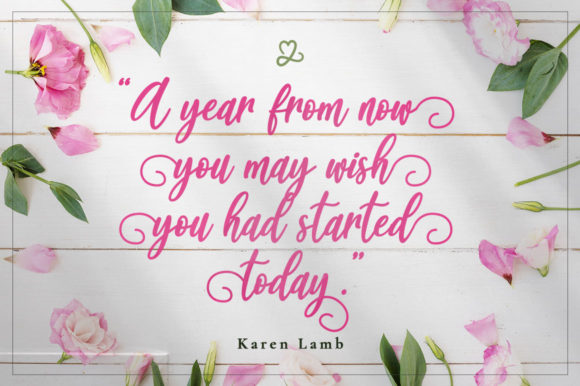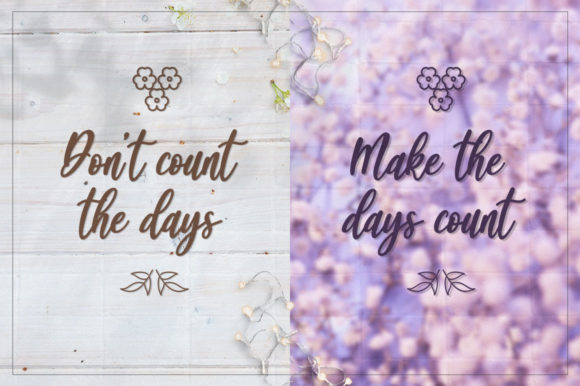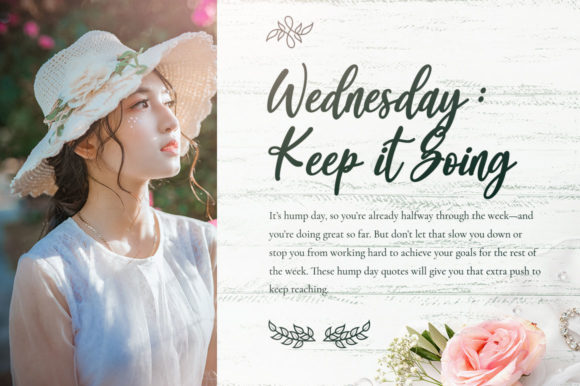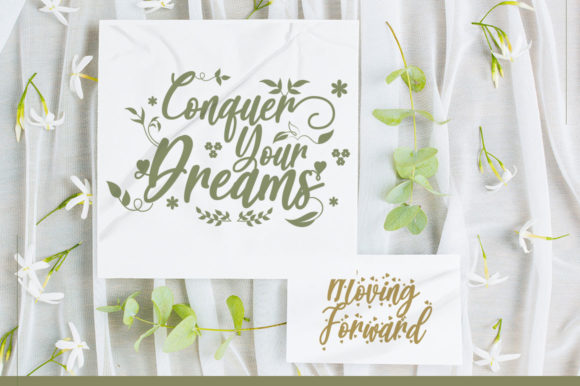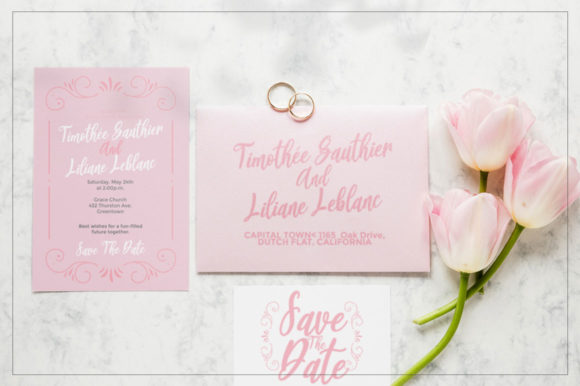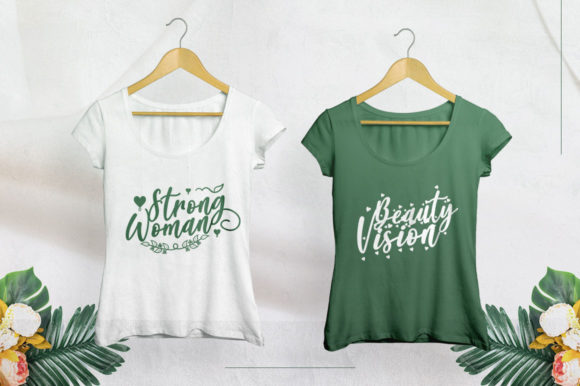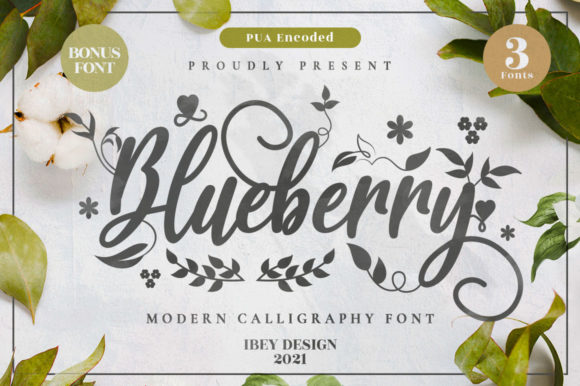
Introducing Blueberry Font: Elevate Your Designs with Elegance
Are you on the hunt for a font that exudes elegance and sophistication? Look no further than Blueberry Font, a unique and beautiful handwritten font that’s perfect for designers and crafters seeking to add a personal touch to their creations. In this article, we’ll dive into the world of Blueberry Font, exploring its features, uses, and benefits, and why it’s a must-have for anyone looking to elevate their designs.
Aesthetic Appeal of Blueberry Font
Blueberry Font boasts a distinctive, elegant handwritten style that instantly captures attention. Its flowing lines and delicate curves lend a touch of sophistication to any design, making it an ideal choice for projects that demand a high level of personalization. Whether you’re creating wedding invitations, thank you cards, greeting cards, or logos, Blueberry Font is sure to make your designs stand out.
One of the standout features of Blueberry Font is its versatility. This font can be used across a wide range of design projects, including:
- Greeting cards for special occasions
Blueberry Font is PUA (Private Use Area) encoded, which means that accessing all the glyphs and swashes is a breeze. PUA encoding allows designers to access a wide range of special characters, including ligatures, ornaments, and swashes, making it easy to add a unique touch to your designs. With Blueberry Font, you can easily access these extra features and take your designs to the next level.
So, what makes Blueberry Font a must-have for designers and crafters? Here are just a few benefits:
- Elegant and sophisticated style: Blueberry Font adds a touch of elegance and sophistication to any design, making it perfect for projects that demand a high level of personalization.
- Easy to use: With PUA encoding, accessing glyphs and swashes is easy, even for those without extensive design experience.
- Versatile: Blueberry Font can be used across a wide range of design projects, making it a valuable addition to any design library.
- Time-saving: With Blueberry Font, you can create stunning designs in no time, saving you hours of design time.
Tips for Using Blueberry Font
To get the most out of Blueberry Font, here are a few tips:
- Experiment with different sizes and colors: Blueberry Font looks great in a variety of sizes and colors, so don’t be afraid to experiment and find the perfect combination for your design.
- Pair with other fonts: Blueberry Font pairs well with other fonts, so try combining it with a sans-serif font for added contrast.
- Use swashes and glyphs: Take advantage of Blueberry Font’s PUA encoding and add swashes and glyphs to your design for a unique touch.
In conclusion, Blueberry Font is a unique and elegant handwritten font that’s perfect for designers and crafters seeking to add a personal touch to their creations. With its PUA encoding, versatility, and aesthetic appeal, Blueberry Font is a must-have for anyone looking to elevate their designs. Whether you’re creating wedding invitations, logos, or social media graphics, Blueberry Font is sure to make your designs stand out. So why wait? Download Blueberry Font today and take your designs to the next level!